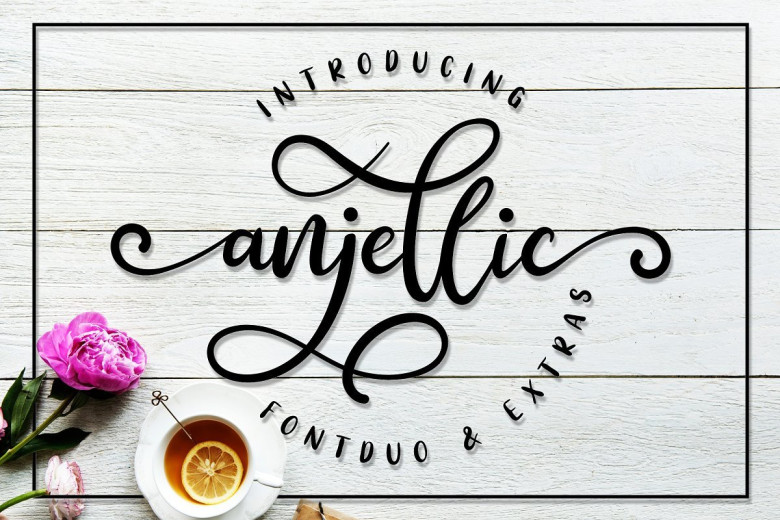
Anjellic Script Font
Very great, a modern calligraphy typeface, use this font for your fashion brand now! Introducing Anjellic Font! Anjellic consists of script fonts and paired with Sans fonts writing in handwriting. Anjellic offers beautiful typographic harmony for a variety of design projects, including logos & branding, wedding designs, social media posts, advertisements, product designs, magazines and others.